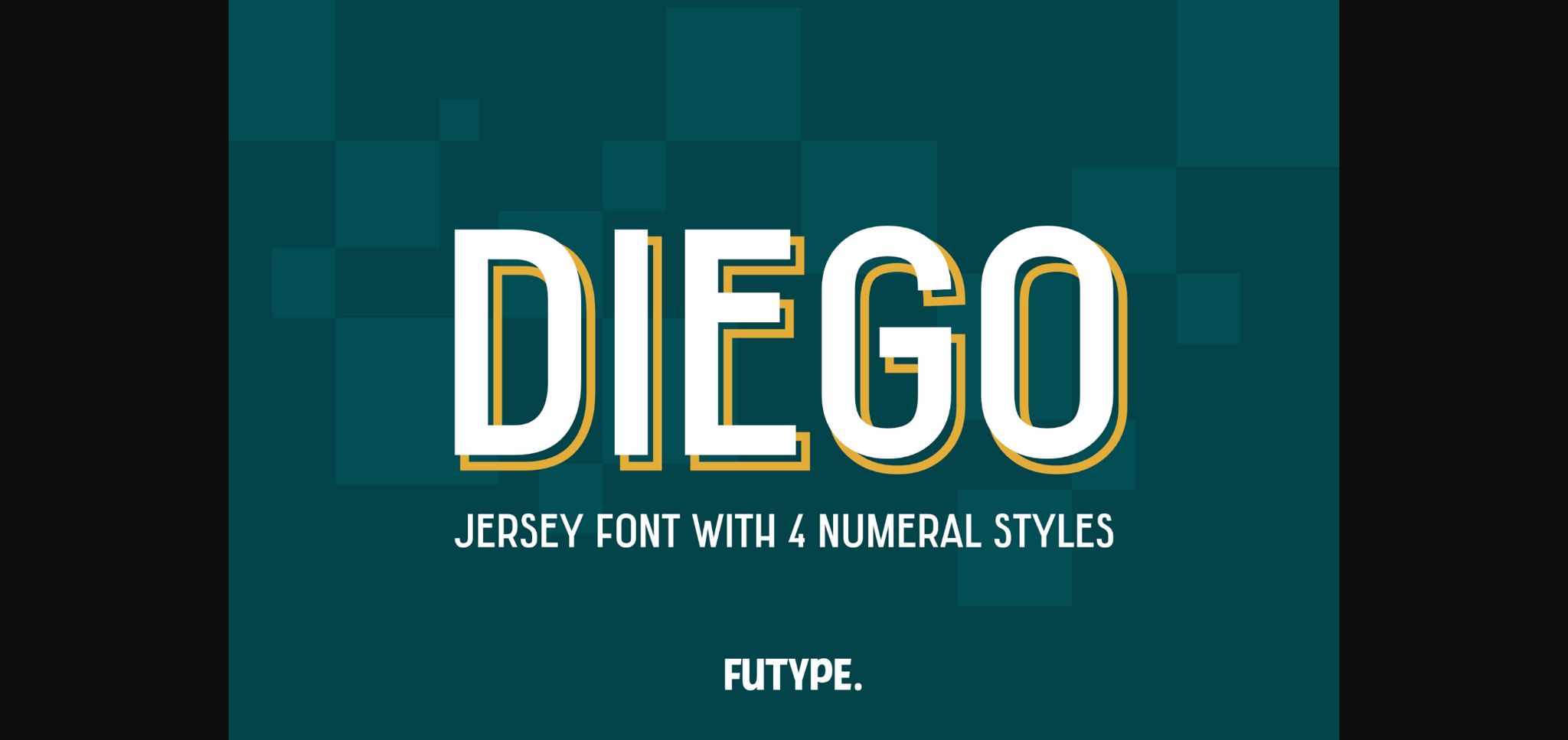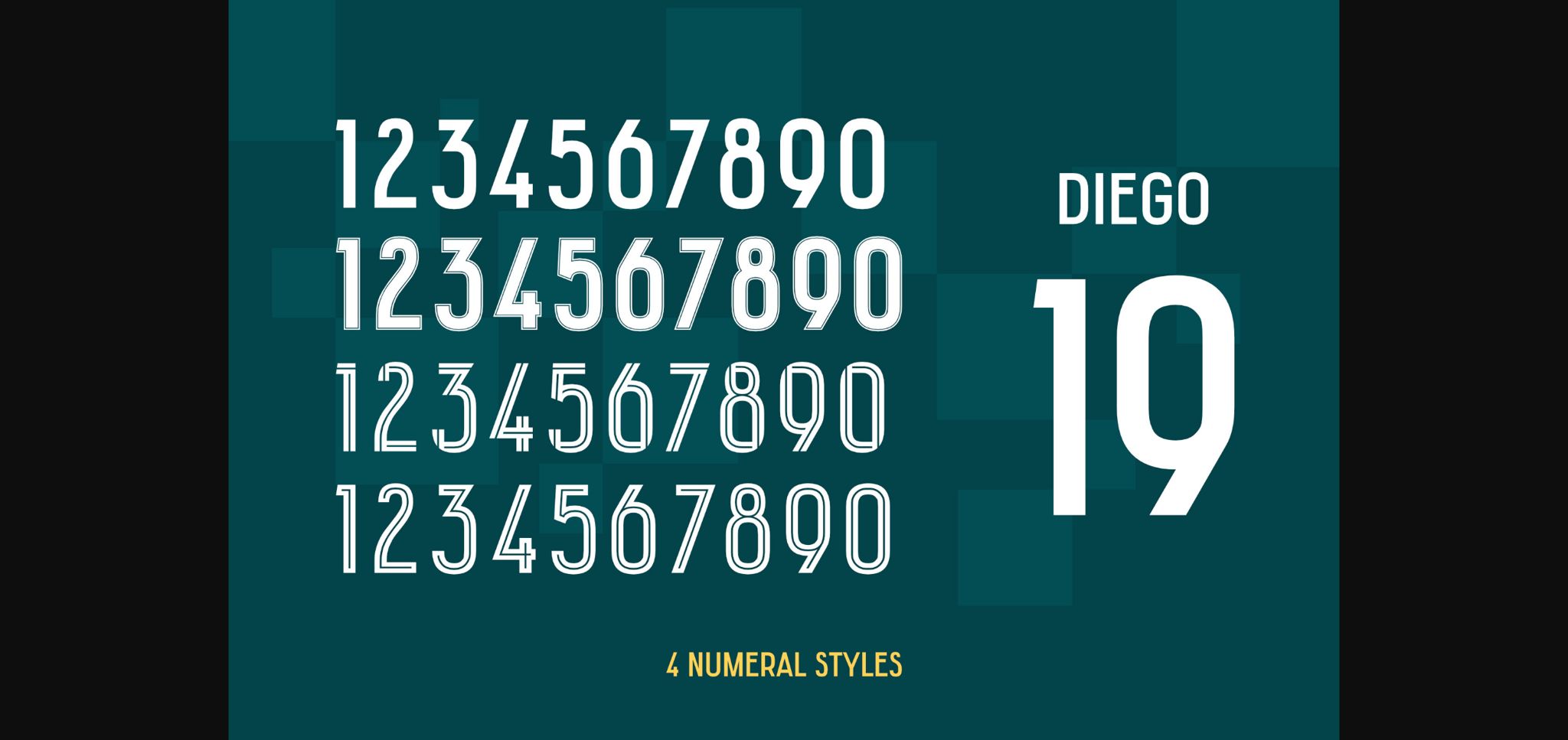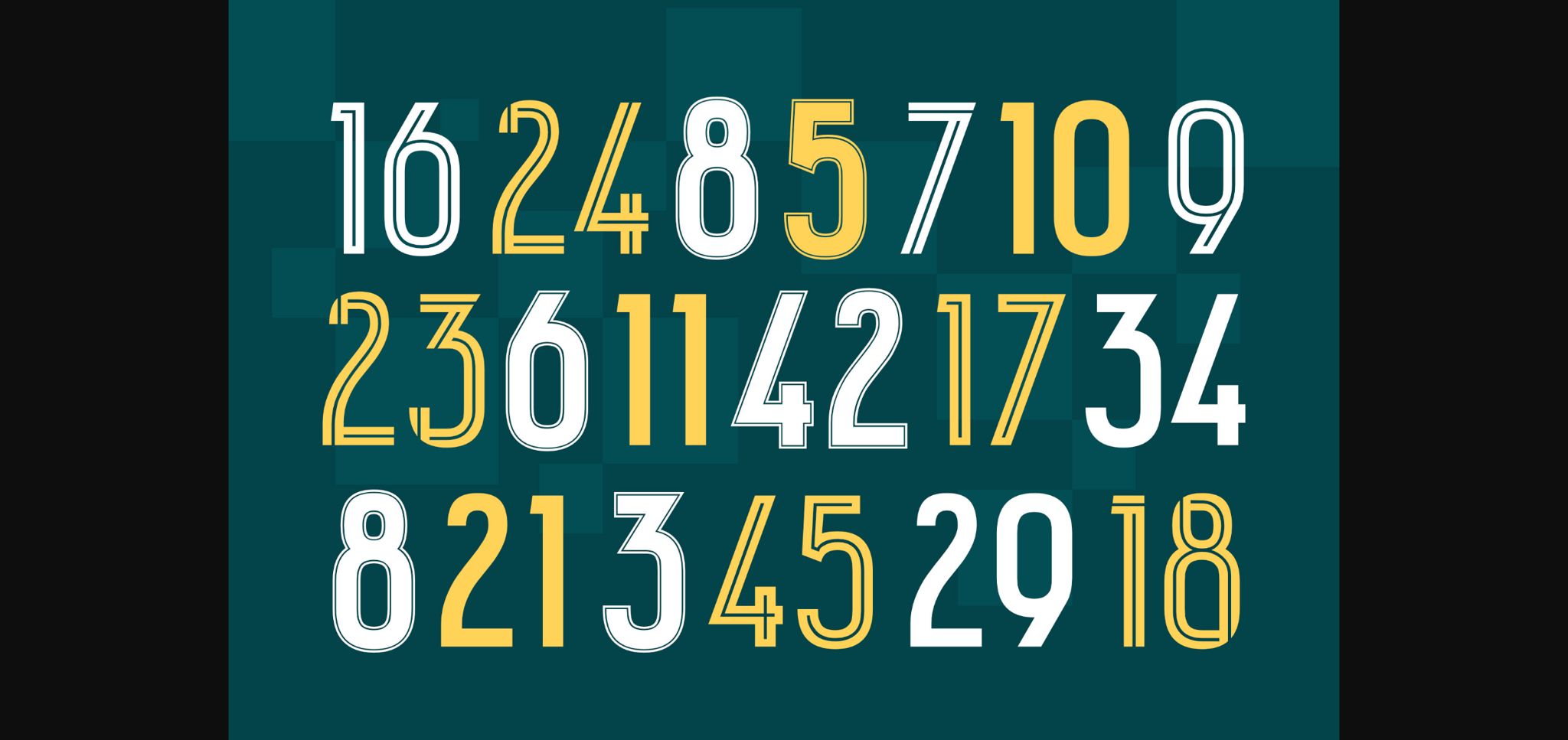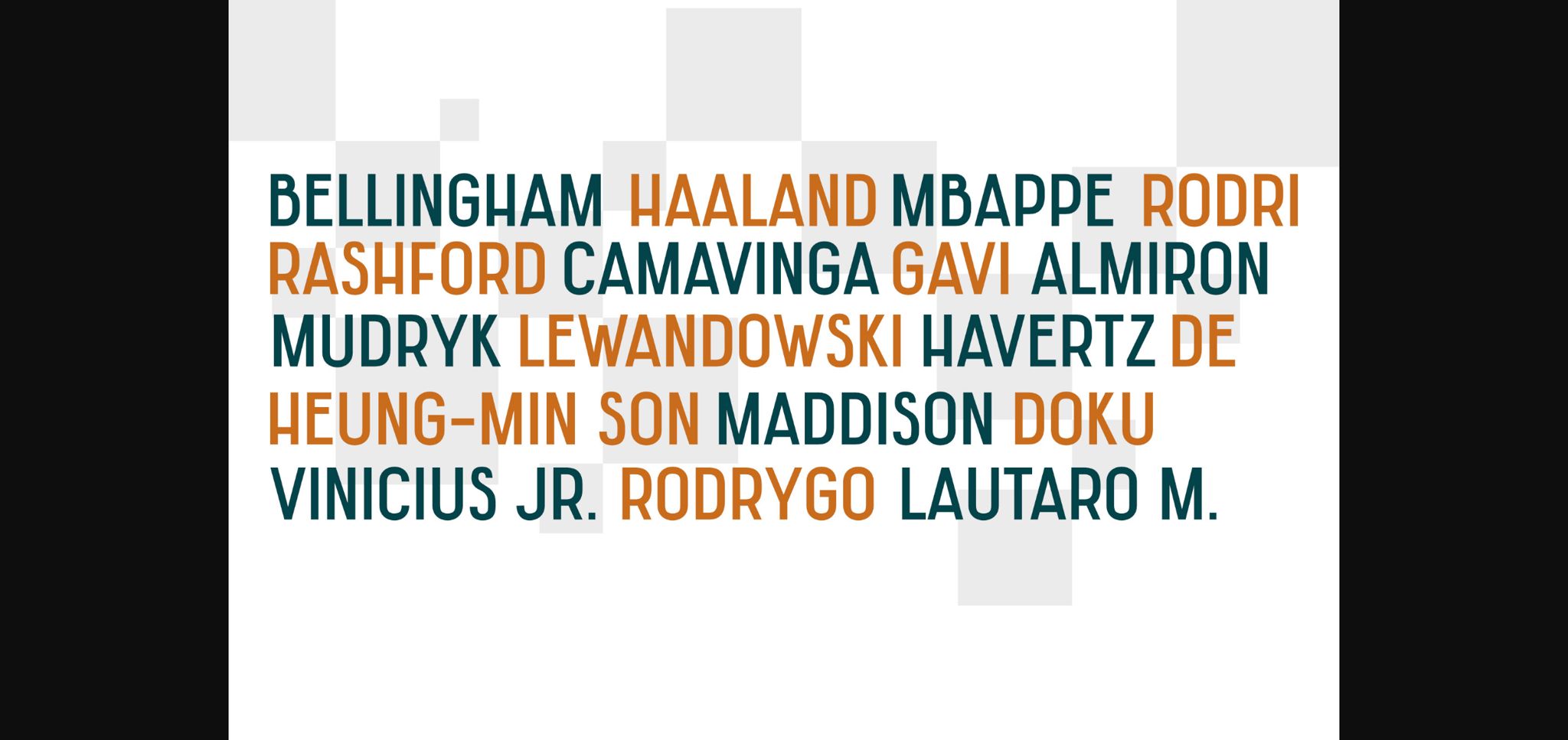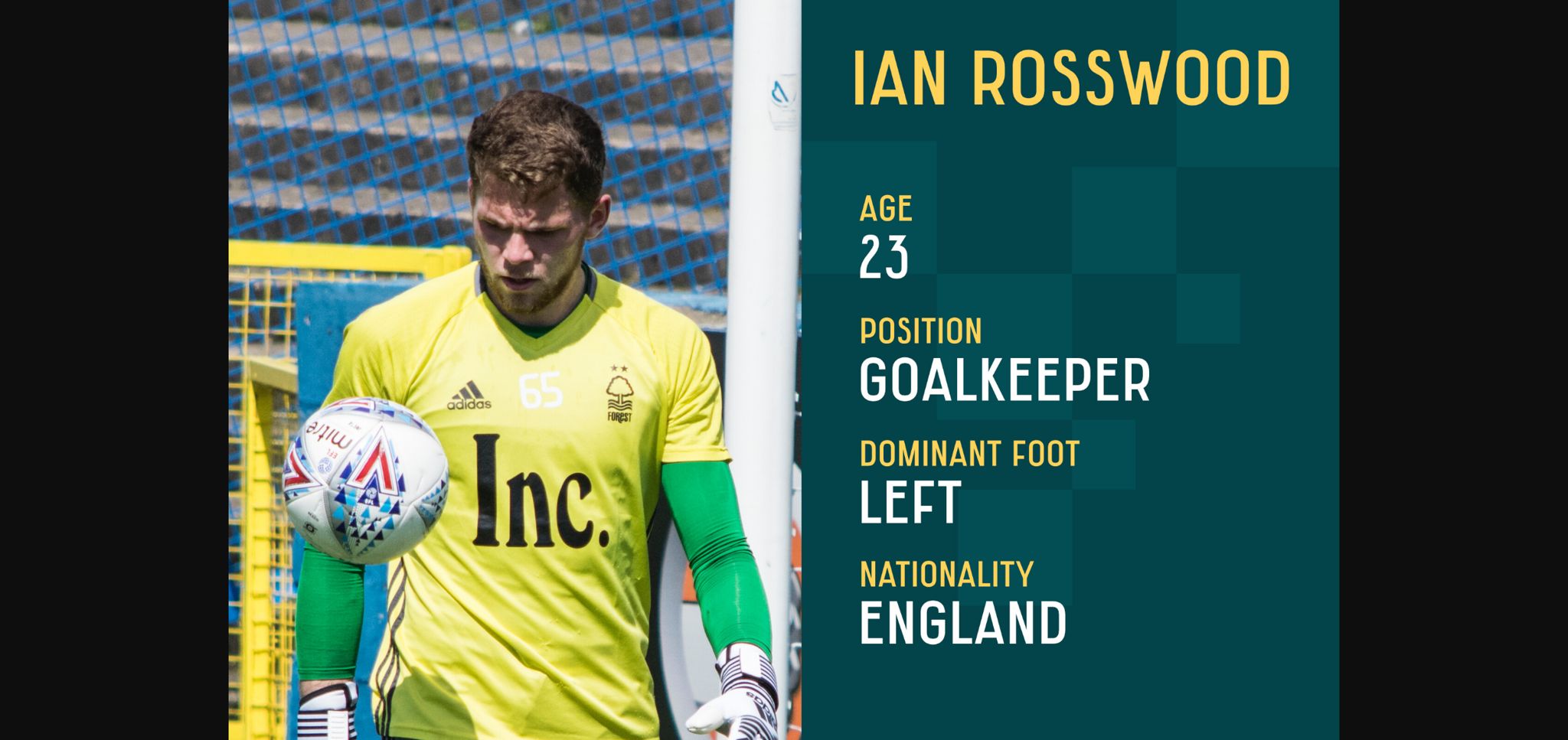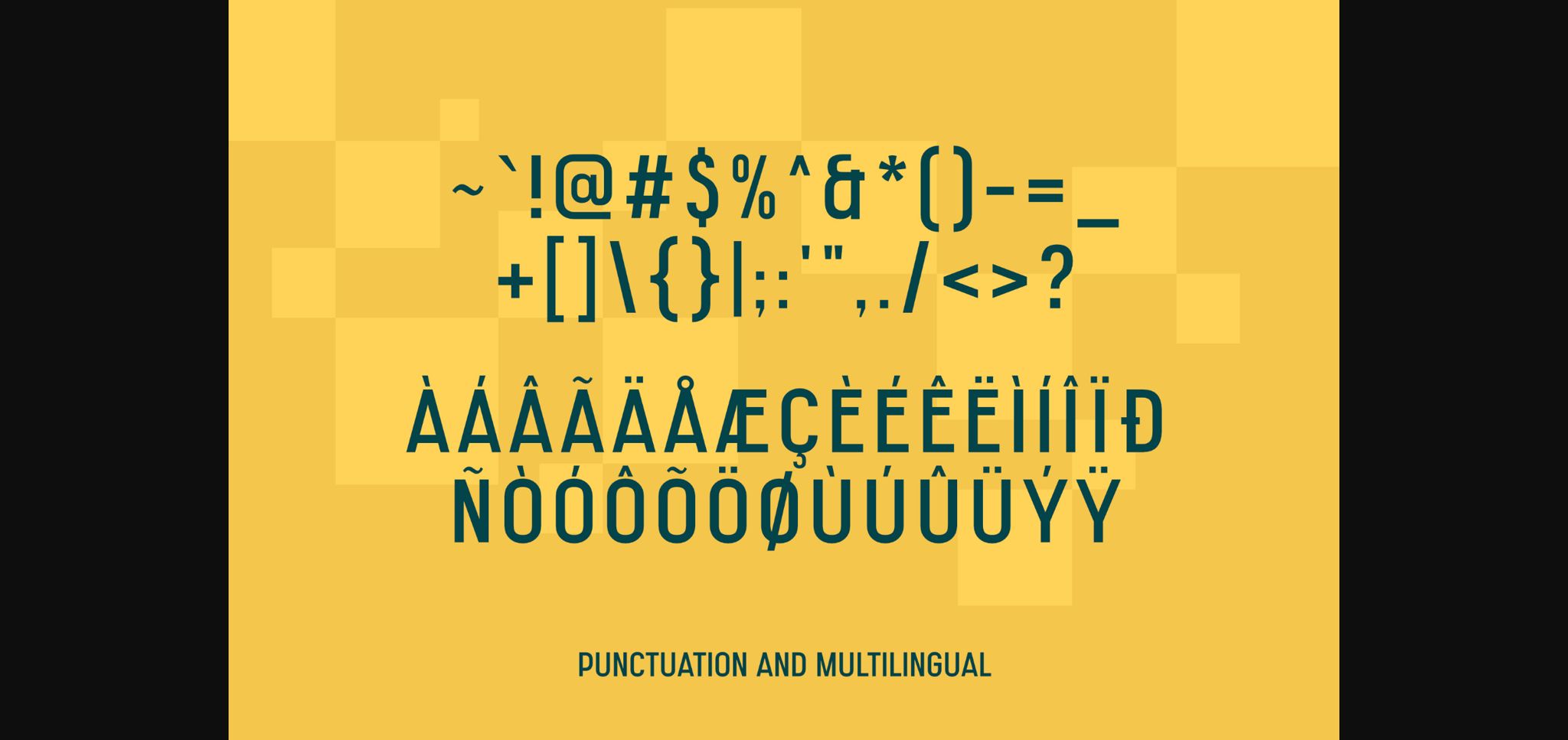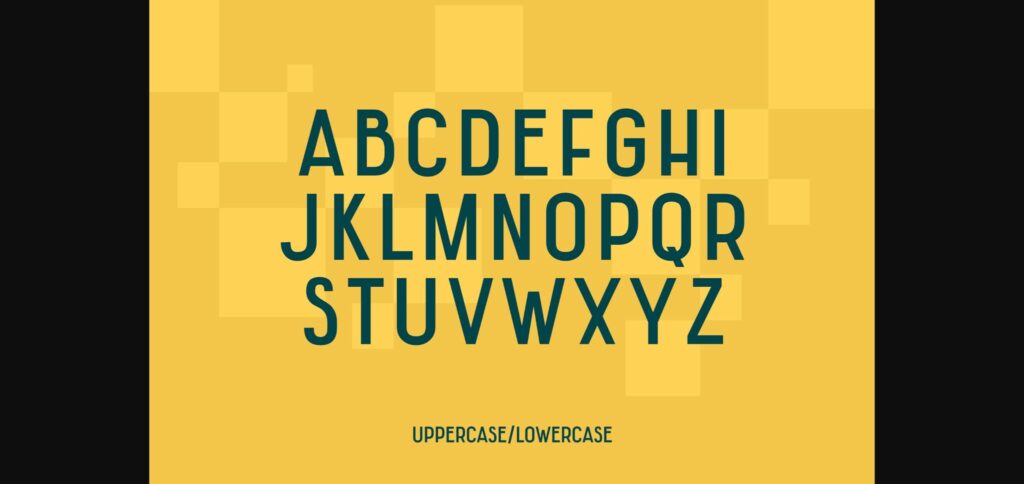
Diego Font
About Diego Font
Diego is a typeface made for football/soccer or other sports jersey/kit name and number.
Complete with 4 different styles of numeral that you can choose for your team.
Even though is made for sports, Diego is also good for other purposes.